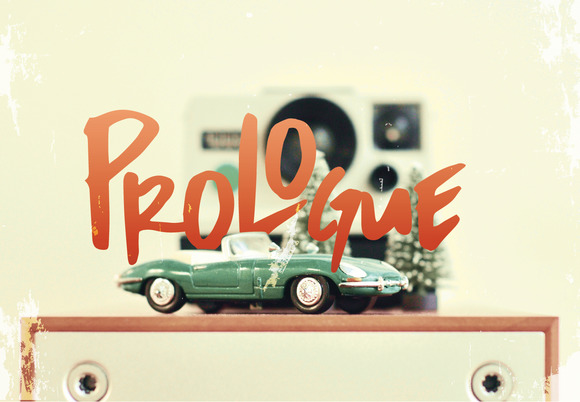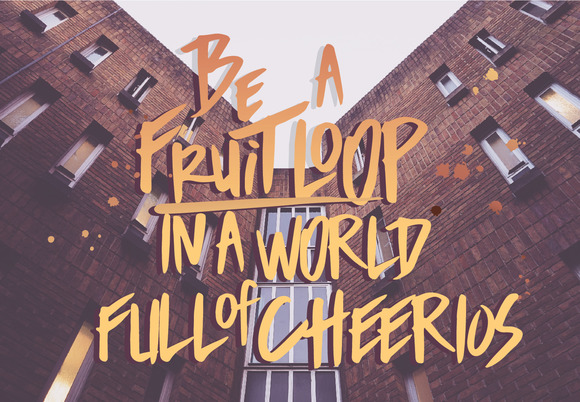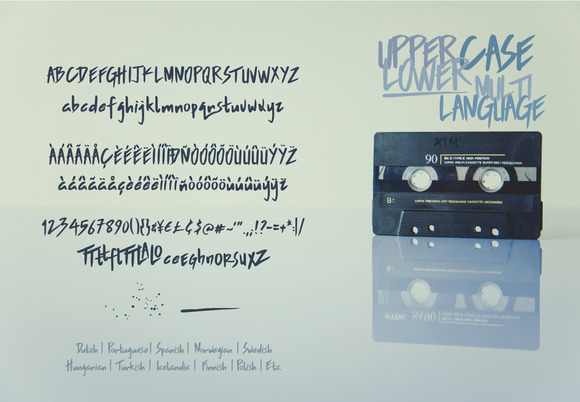
Introduction to Oh Blazt Font
Oh Blatz is a edgy summertime display font.
This beautiful font gives you that ultimate summervibe that makes your designs look like they come straight out of Venice Beach The Oh Blatz font feaures: Uppercase & Lowercase characters Alternative Characters Numbers Special Characters.